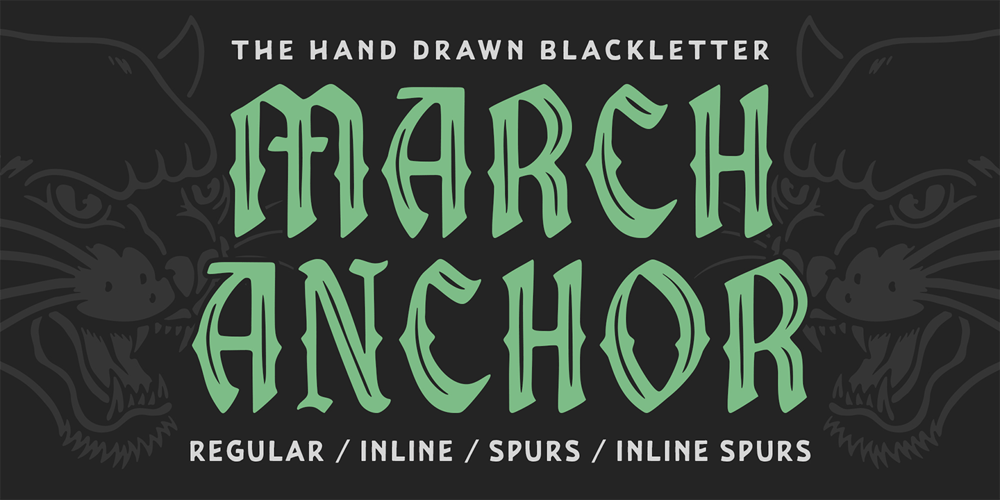
March Anchor Font Family was designed by Septianto Nugroho and published by Ironbird Creative. March Anchor contains 4 styles and family package options. March Anchor is a organic blackletter with handdrawn feel. This typefaces is perfect for people looking for vintage aesthetic and dark feel. Suitable for any graphic designs such as branding materials, t-shirt, print, logo, poster, t-shirt, quotes .etcRegards,Ironbird Creative